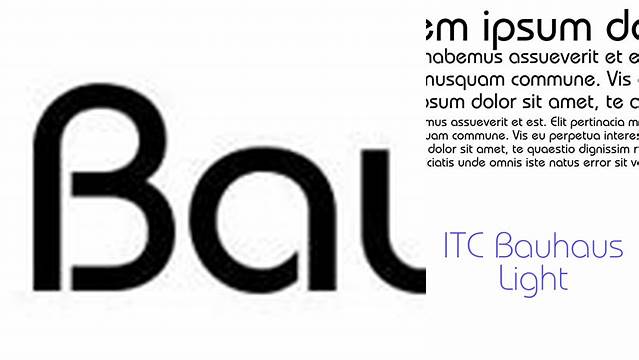
Hey guys! 👋 Today, we're diving headfirst into the world of typography, specifically looking at the Bauhaus ITC font. This iconic font, a true staple in design, is known for its clean lines, geometric shapes, and timeless appeal. If you're on the hunt for a free Bauhaus ITC font download, you've come to the right place. We'll explore everything from where to find it safely, how to use it effectively, and some awesome design ideas to get your creative juices flowing. So, buckle up, because we're about to embark on a font-tastic journey! 🚀
Bauhaus ITC Font: A Brief History and Its Enduring Appeal
Let's kick things off with a little history lesson, shall we? The Bauhaus ITC font is inspired by the Bauhaus art and design movement, which emerged in Germany in the early 20th century. This movement championed functionalism, minimalism, and a focus on form following function. These principles are clearly visible in the Bauhaus ITC font's design. Its geometric letterforms, devoid of unnecessary embellishments, are a direct reflection of the Bauhaus philosophy. It's a font that screams modernity, simplicity, and elegance all at once. The font was originally created by the International Typeface Corporation (ITC), which is where the ITC in its name comes from. The design of the font is credited to Edward Benguiat, who based it on the original Bauhaus typeface. What makes the Bauhaus ITC font so enduring? Well, its versatility is a major factor. It's incredibly readable, making it perfect for both headlines and body text. Plus, its clean and uncluttered appearance makes it suitable for a wide range of design projects, from websites and logos to posters and packaging. The font has a way of communicating in a very direct and compelling manner, something that's still highly valued in today's busy world. Whether you're a seasoned designer or a beginner, the Bauhaus ITC font is a must-have in your font library. It's a tool that allows you to create stunning visuals with a touch of classic modernism. The font's ability to evoke a sense of both nostalgia and contemporary design makes it a popular choice for projects across all industries. The influence of the Bauhaus movement on the font's design ensures that your design projects have a sophisticated edge. Understanding the roots of the font will help you appreciate its design and how it has changed over time. Now, with a little context, you can start to see its allure.
The Different Styles and Weights of the Bauhaus ITC Font
Now, let's talk about the range of styles and weights the Bauhaus ITC font typically comes in. This is important because it affects how you can use the font in your designs. You'll usually find the font available in several different weights, like Light, Medium, Bold, and sometimes even Extra Bold. These different weights allow you to create visual hierarchy and add emphasis to certain parts of your text. For example, you might use the Bold weight for headlines and the Medium weight for body text. Besides different weights, you may also come across variations like Italics or Condensed styles. The Italics version adds a touch of elegance and can be used for emphasis or to set apart certain text. The Condensed style is perfect for fitting text into tight spaces. Some foundries may offer extended versions of the font, with different widths and further variations on the original design. The availability of different styles and weights gives you the flexibility to customize the look and feel of your design. Make sure the versions you find match your intended use. When you are looking for a Bauhaus ITC font free download, try to find a font family with multiple weights to get the most flexibility. Experiment with different styles and weights to see how they affect the overall look and feel of your design. If you can't find the complete family for free, explore similar fonts or consider purchasing a licensed version to gain access to the full range of styles.
Bauhaus ITC Font vs. Similar Fonts: A Comparative Analysis
So, you've found a Bauhaus ITC font, or maybe you're exploring alternatives. It's helpful to know how it stacks up against similar fonts. This comparison will help you decide if Bauhaus ITC font is the right choice for your project. When looking at alternatives, you might consider fonts that share the same geometric and minimalist principles. One popular alternative is Futura, a geometric sans-serif font that shares similarities with Bauhaus ITC. Futura offers a wide range of weights and styles, making it a versatile option. Another option is Avant Garde Gothic, which also has clean lines and a modern feel. However, Avant Garde Gothic has a distinct style compared to Bauhaus ITC. Each of these fonts has its own unique nuances. The best font for your project will depend on your design goals. Compare the x-height (the height of the lowercase letters) of different fonts. A higher x-height can make a font more readable, especially at smaller sizes. Consider the overall character of each font. Some fonts have a more playful feel, while others are more serious and formal. If you can't find a Bauhaus ITC font free download, explore its alternatives. Many similar fonts are available, and some even offer better options. By comparing the different fonts, you can choose the best one for your project. It is not always easy to see the differences. However, when you start to use the fonts, the differences become obvious.